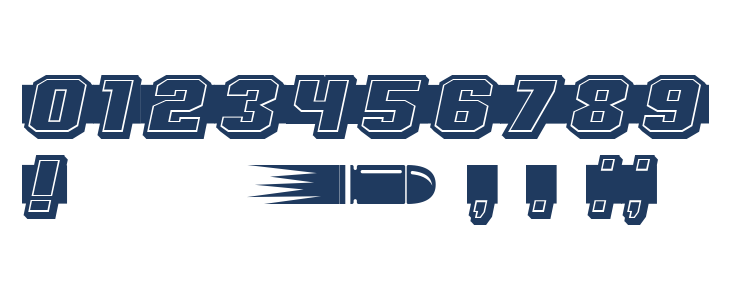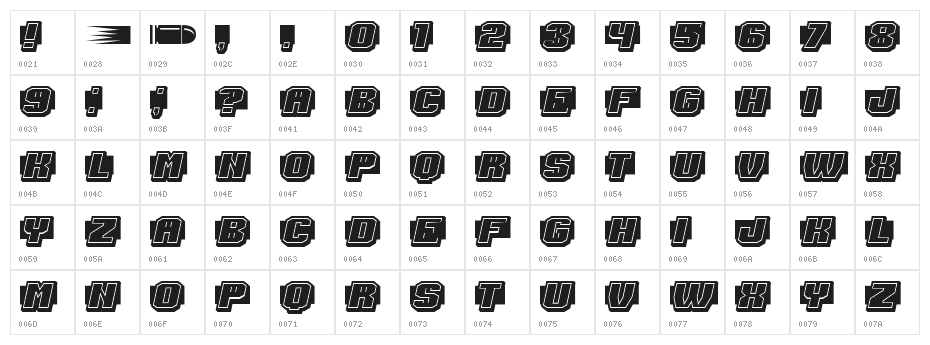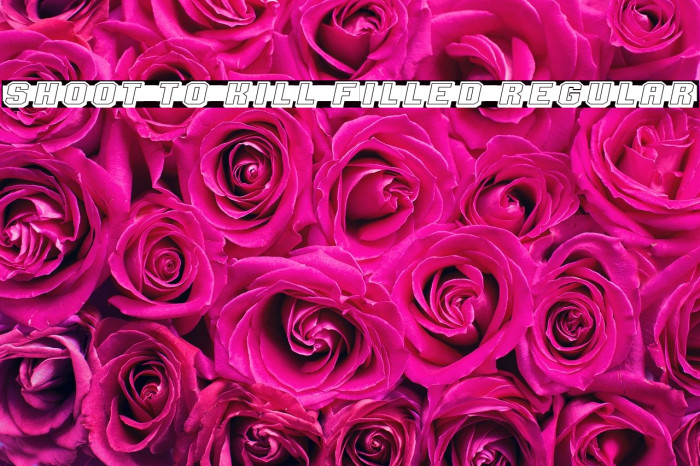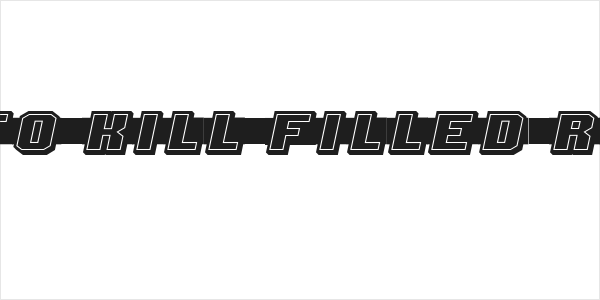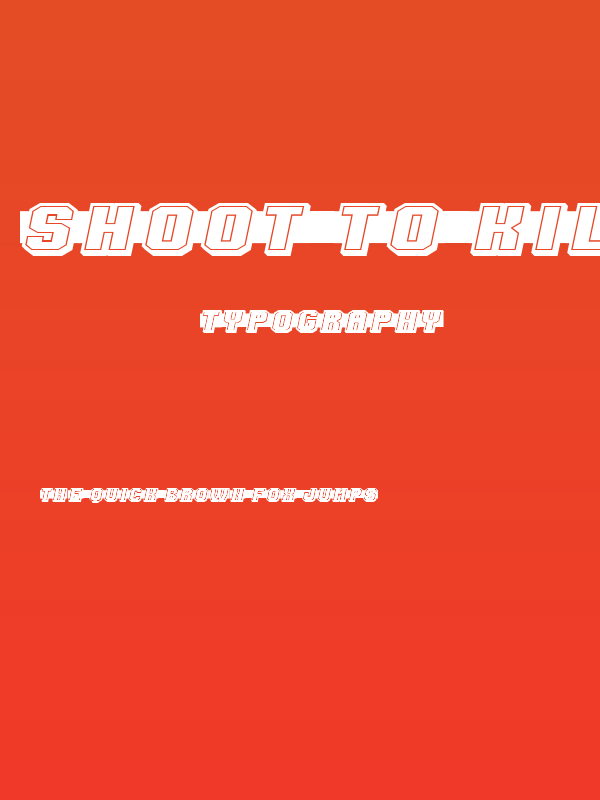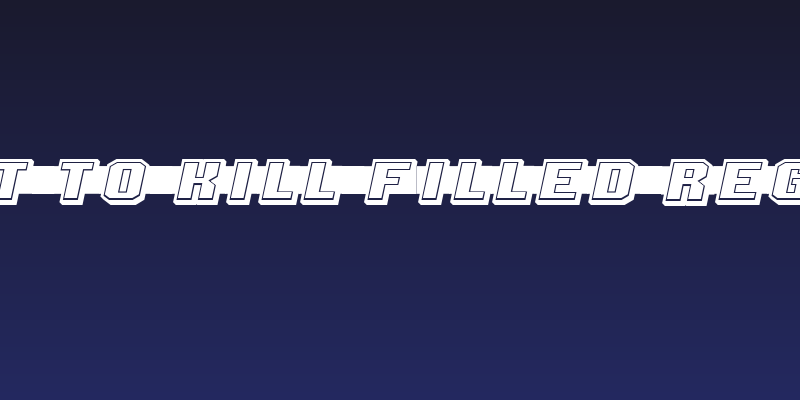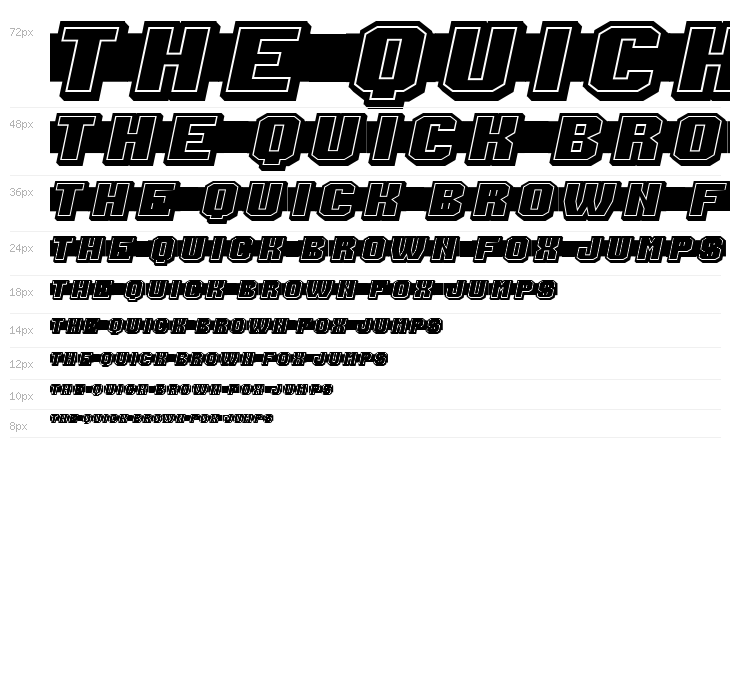
Shoot to Kill Filled Regular Font
Shoot to Kill Filled Regular Description
This font features a bold, dynamic style with a strong, impactful presence. The characters are outlined with a thick border, giving them a three-dimensional effect that stands out prominently. The design is reminiscent of action-packed themes, with a sense of movement and energy. The uppercase letters are uniform in height, while the numerals and special characters maintain the same bold aesthetic. The font's unique style makes it suitable for attention-grabbing headlines or logos that require a strong visual impact.